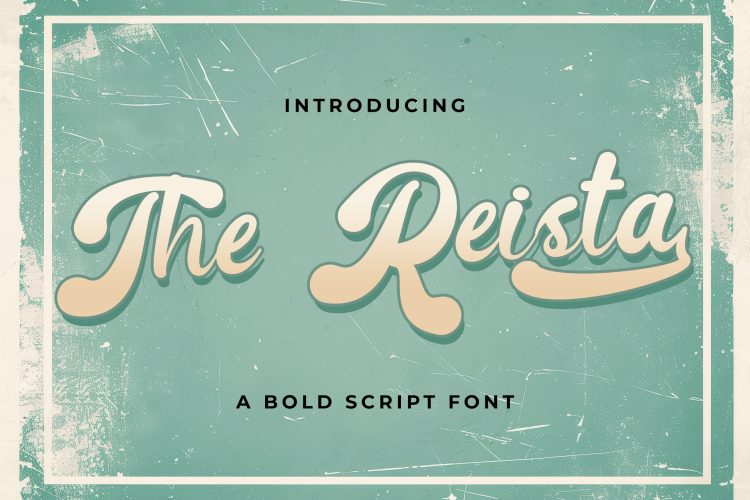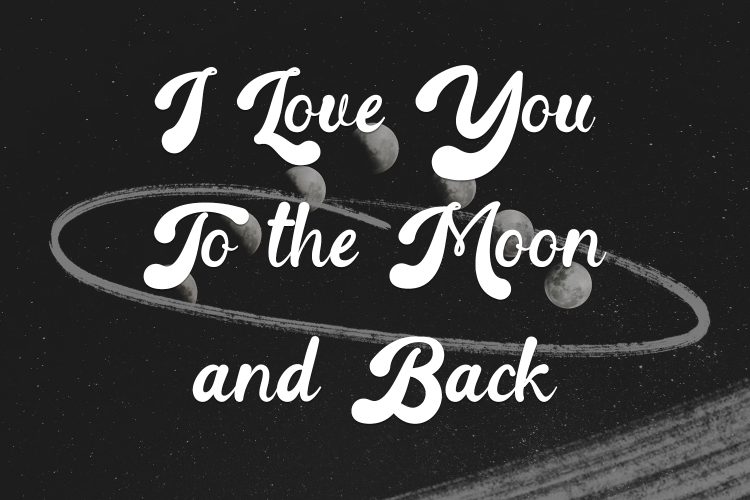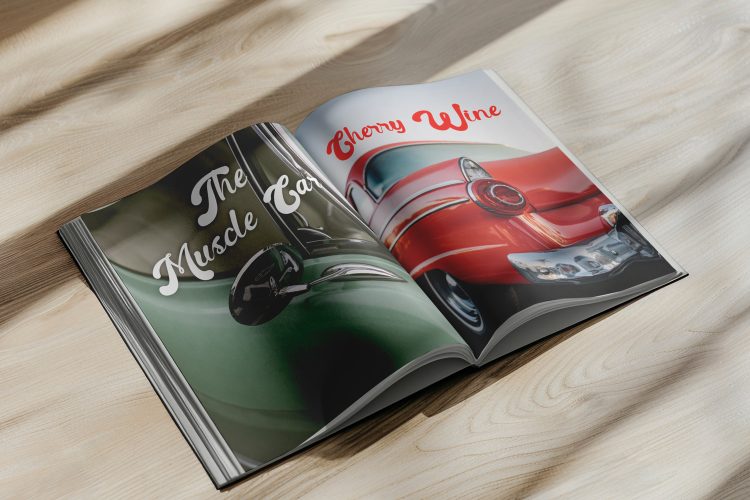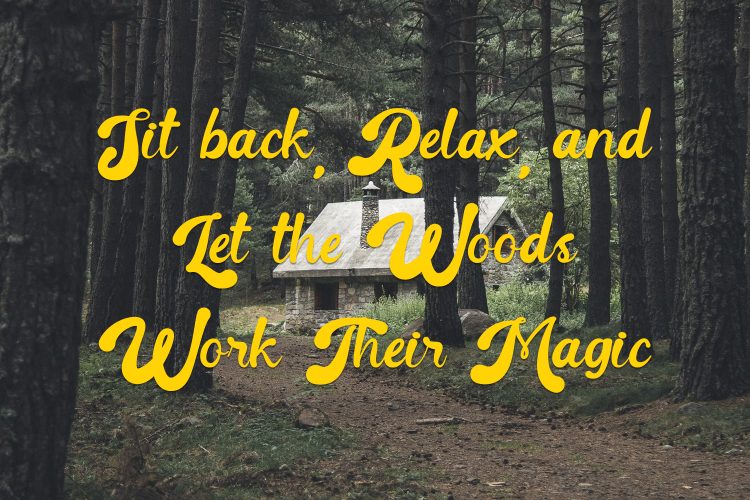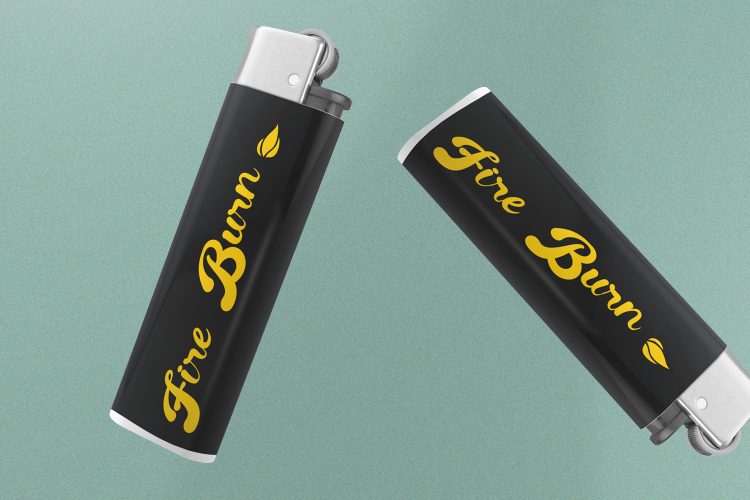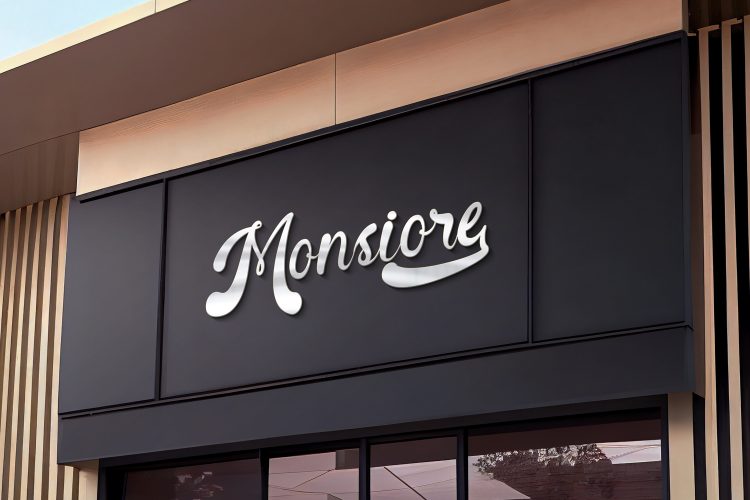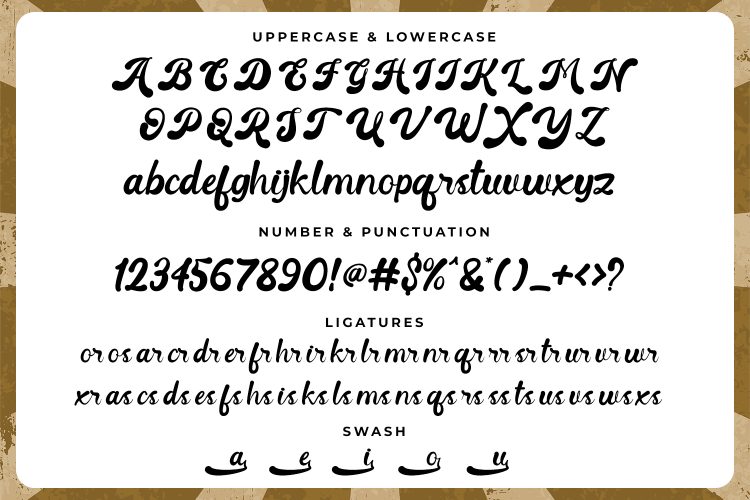
The Reista – Retro Font
The Reista is a bold and nostalgic retro script font inspired by vintage signage and classic typography. With its smooth curves, playful swashes, and thick strokes, this font brings a timeless charm to logos, branding, posters, packaging, and more. Whether you’re designing for a retro-inspired project or looking to add a touch of personality to your work, The Reista delivers an authentic and eye-catching appeal.